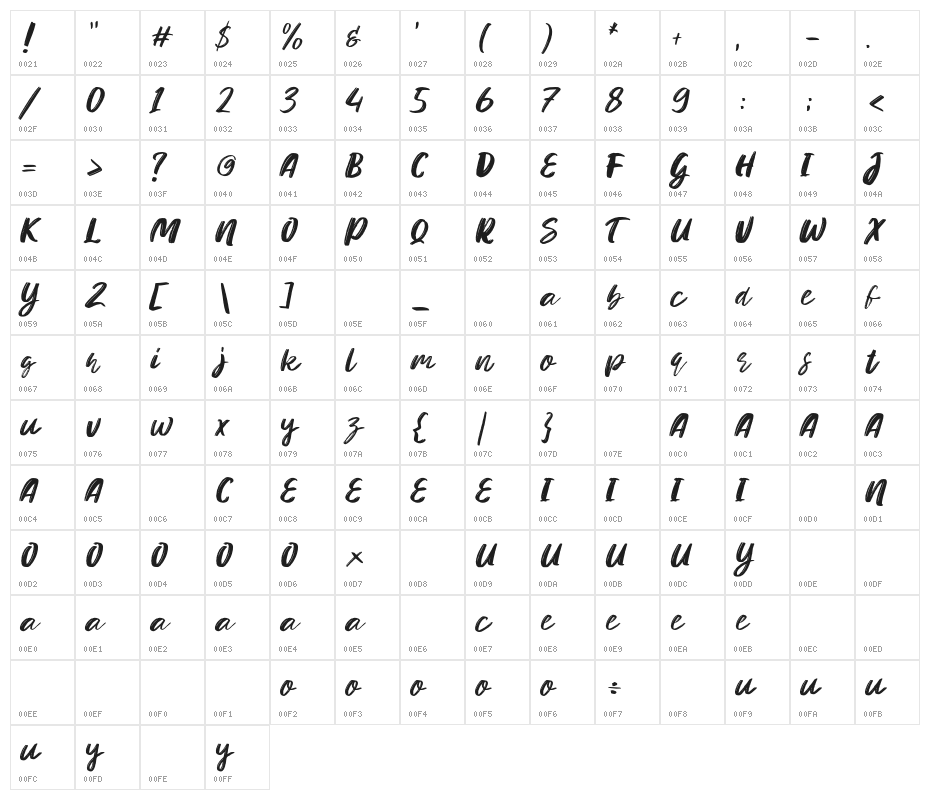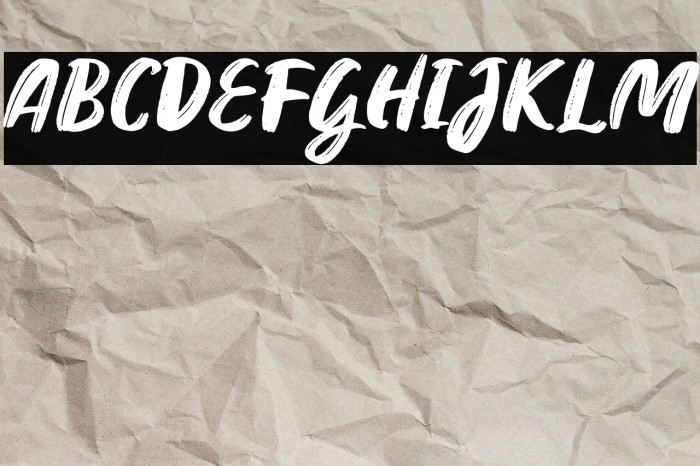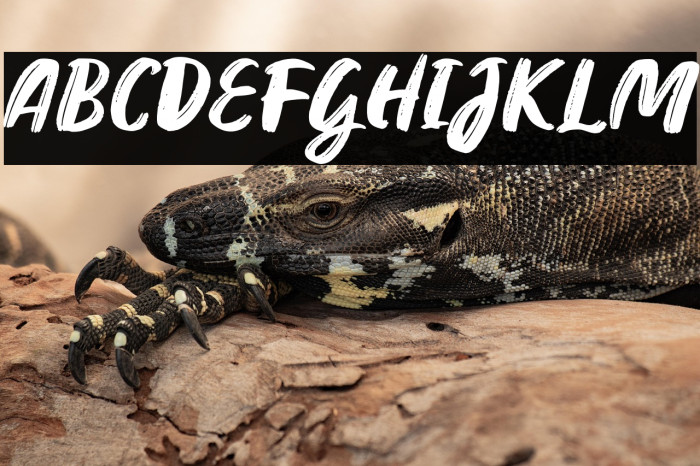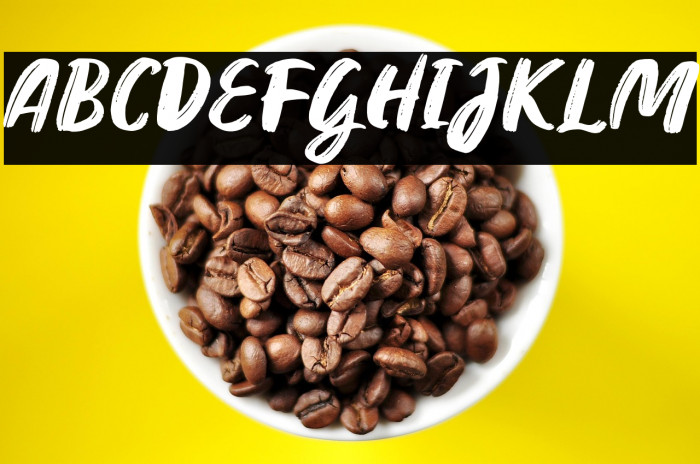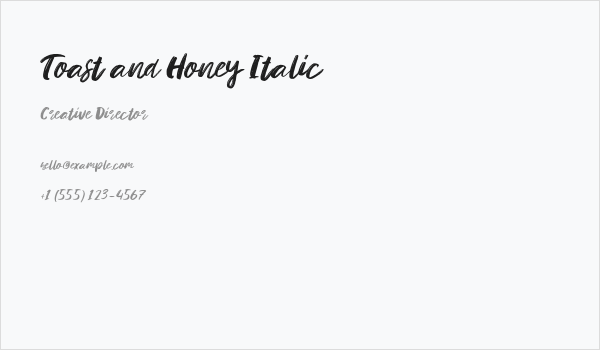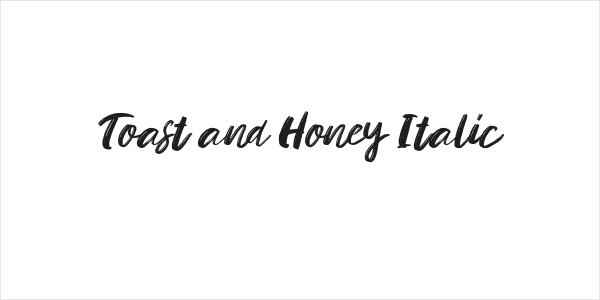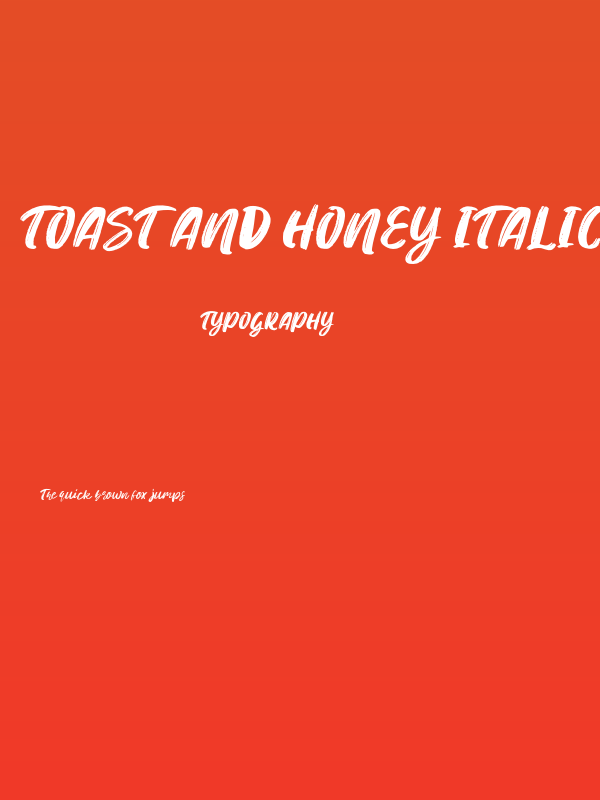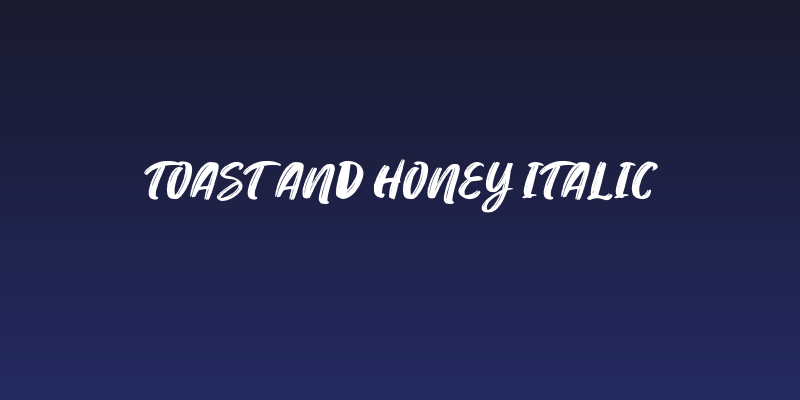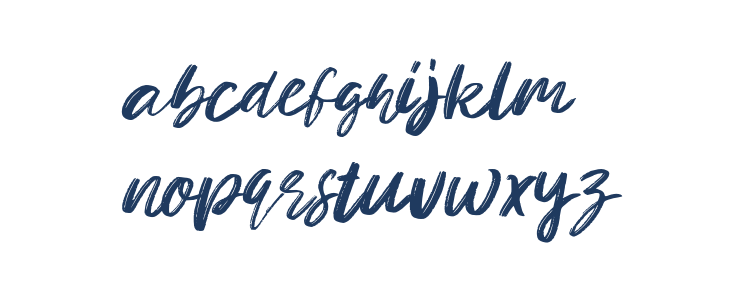
Toast and Honey Italic Font
Toast and Honey Italic Description
This font features a bold, expressive script style with a hand-drawn appearance. The letters are fluid and dynamic, with a noticeable slant that adds to its energetic feel. The strokes are thick and consistent, giving it a strong presence. The uppercase and lowercase letters are well-balanced, and the numbers and special characters maintain the same lively aesthetic. This font is ideal for creating eye-catching designs that require a personal touch.
| Proposed Projects | Great for branding, invitations, greeting cards, and social media graphics. |